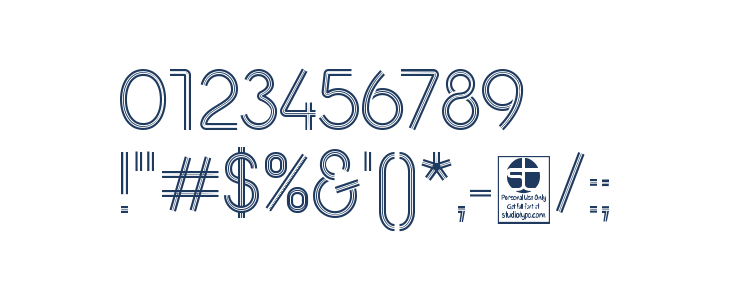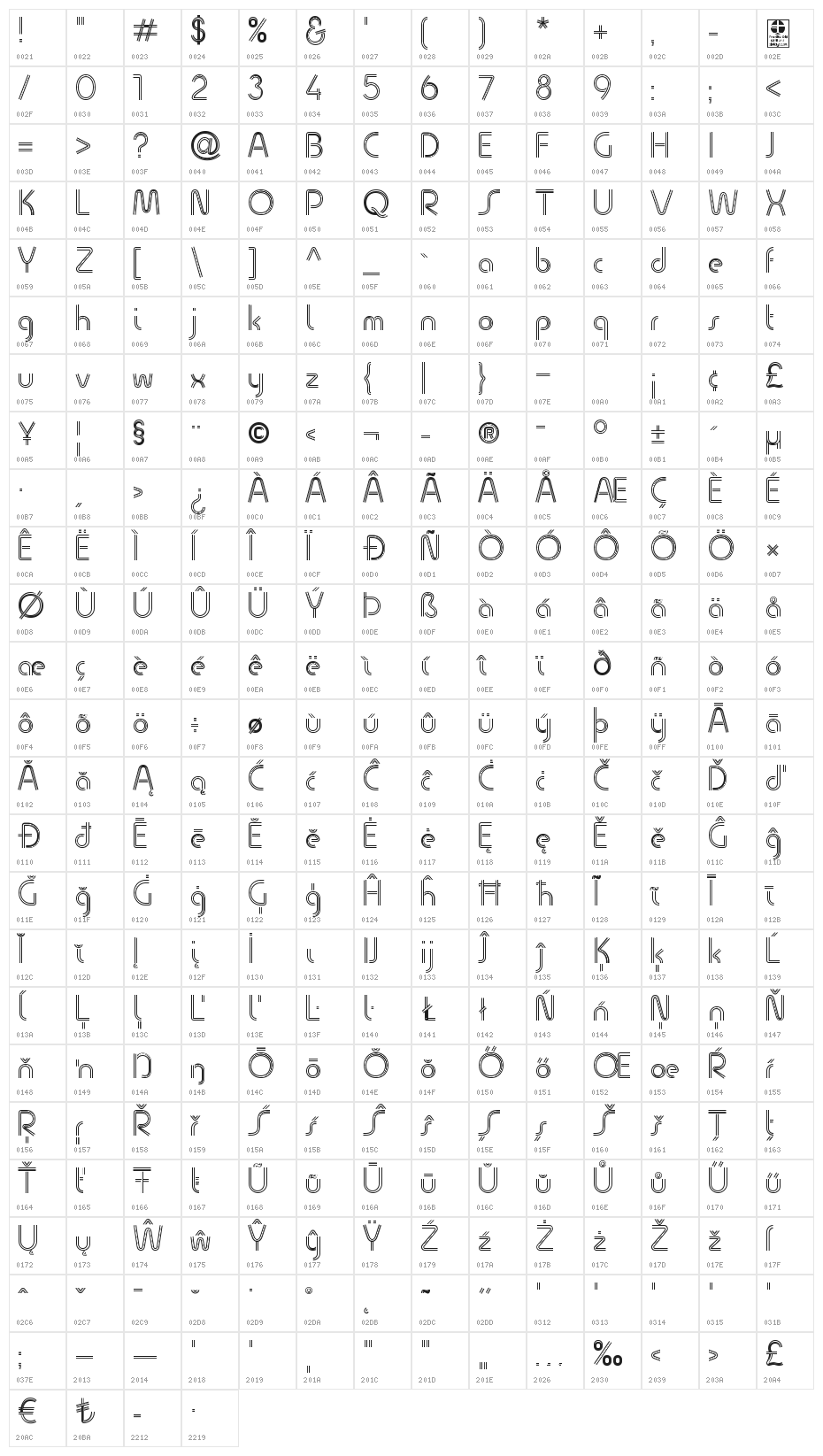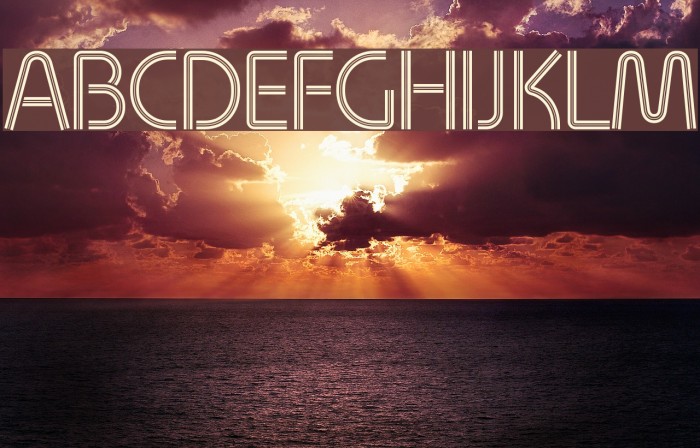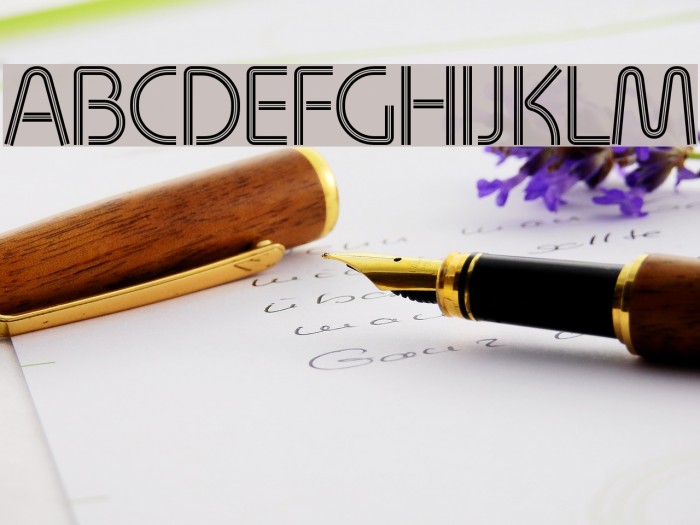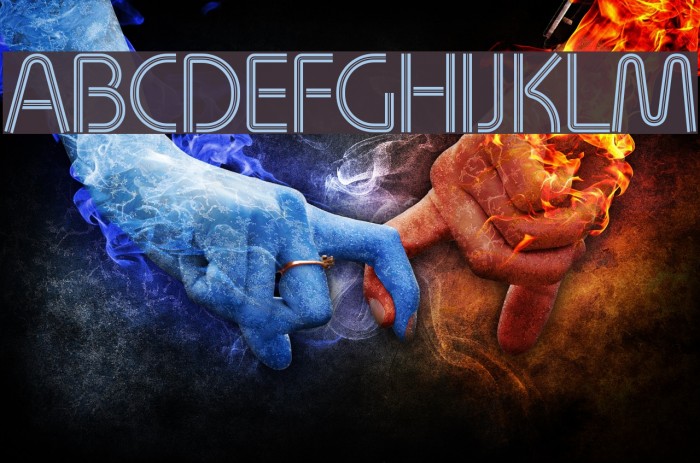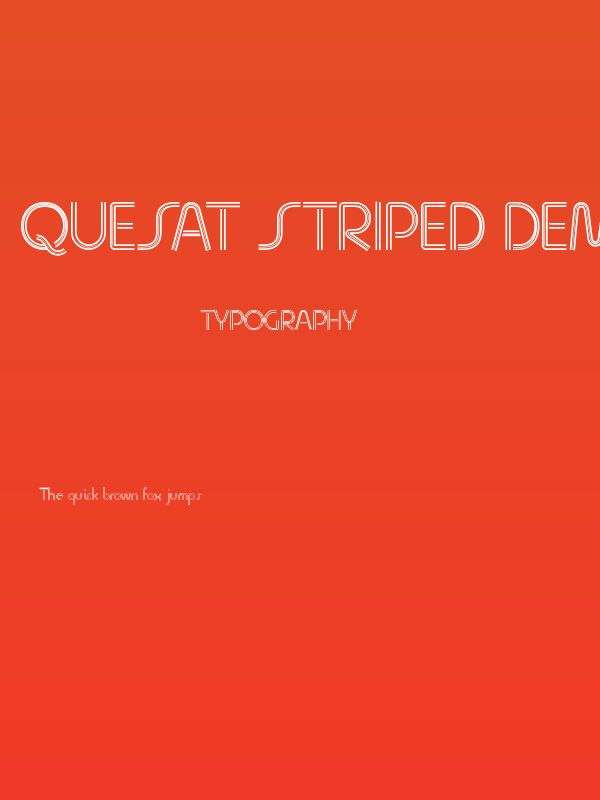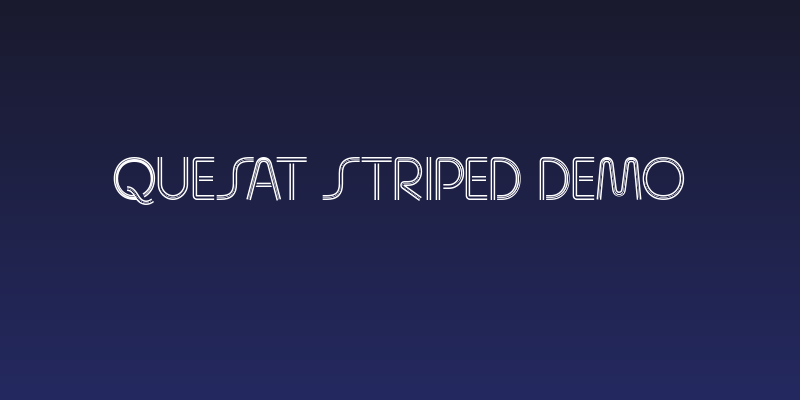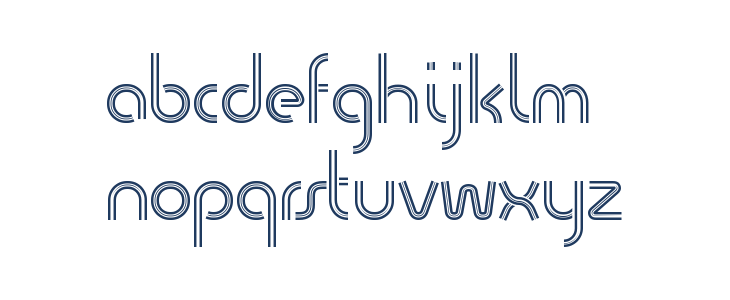
Quesat Striped Demo Font
Quesat Striped Demo Description
This font features a unique striped design, characterized by multiple parallel lines forming each character. The geometric structure gives it a modern and futuristic appearance, with clean and precise lines. The uppercase and lowercase letters maintain a consistent style, while the numerals and special characters complement the overall aesthetic. The font's distinctiveness lies in its decorative, almost architectural quality, making it stand out in any design project. Its uniformity and symmetry are visually appealing, offering a bold statement without compromising readability.